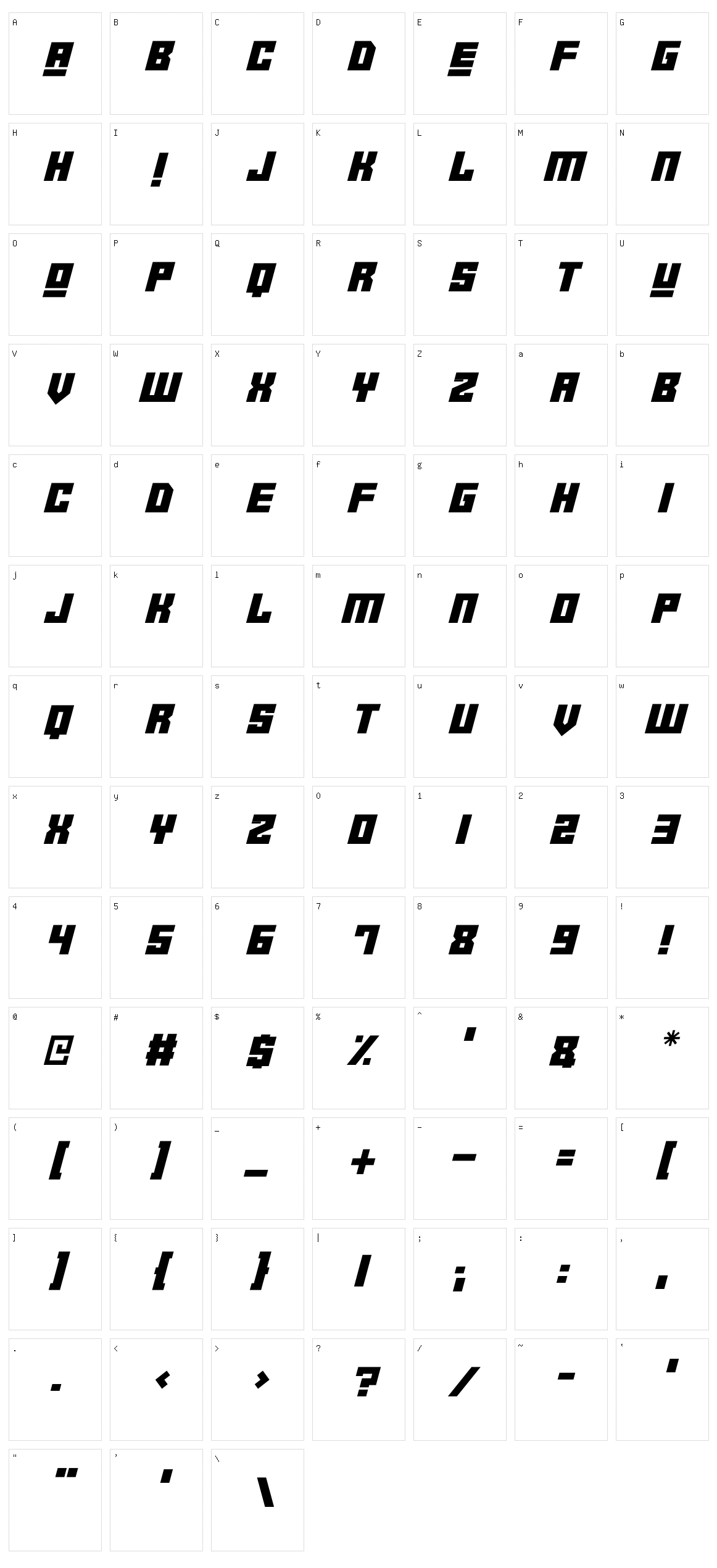
Robot Crush V1.1
* Full Euro character support added (all common accents and composites)
* Diagonal cuts in main characters now standardized (R,B,K,X)
* Line widths now standardized for improved readability (more space between lines)
* Lead-ins and lead-outs now standardized (50,50 rather than 0,100)
* Various extra characters added
* Various minor improvements